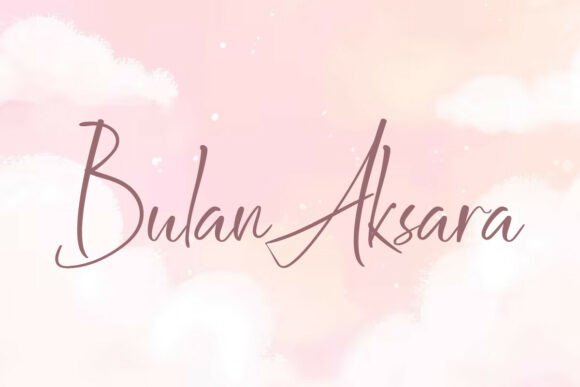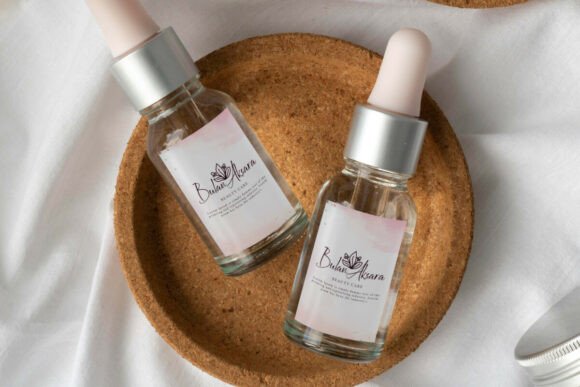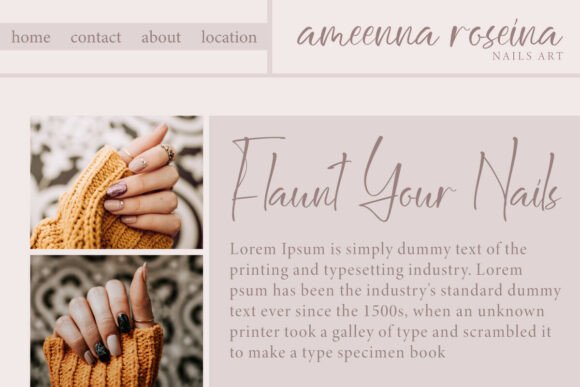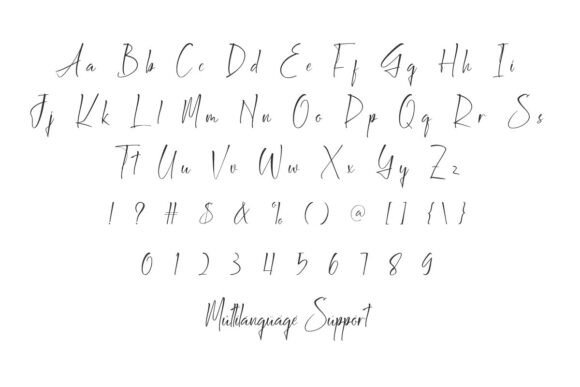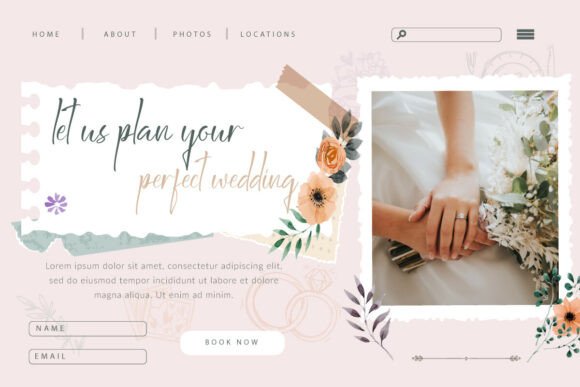
Bulan Aksara Font: Elevate Your Designs with Elegance and Sophistication
In the world of typography, a beautiful font can make all the difference in creating stunning designs that capture the essence of your brand or project. One such font that has gained popularity among designers and crafters is the Bulan Aksara Font. This gorgeous, handcrafted signature script boasts a modern, chic signature font with an elegant style that can instantly elevate your designs.
What is Bulan Aksara Font?
Bulan Aksara Font is a carefully crafted, handwritten script that exudes a natural and personal appeal. Its elegant style and modern charm make it perfect for a wide range of design projects, from business branding to personal use. This versatile font is ideal for creating stunning visual content for various industries, including bridal boutiques, clothing brands, cosmetics, fashion, florists, restaurants, salons, skincare, spas, wedding organizers, and more.
Key Features of Bulan Aksara Font
- Handcrafted with love: Each letter has been carefully crafted to give it a personal touch, making it perfect for designs that require a human touch.
- Modern and chic: The font boasts a modern, sophisticated style that will make your designs stand out from the crowd.
- Elegant style: The elegant style of Bulan Aksara Font makes it perfect for high-end branding, wedding designs, and luxury products.
- Natural and realistic: The handwritten script looks natural and realistic, giving your designs a personal and authentic feel.
- Versatile: Suitable for a wide range of design projects, from business branding to personal use.
Why Choose Bulan Aksara Font?
With Bulan Aksara Font, you can add a touch of elegance and sophistication to your designs. Here are some reasons why you should consider using this beautiful font:
- Enhance your designs: Bulan Aksara Font can instantly elevate your designs and make them more visually appealing.
- Stand out from the crowd: The unique and elegant style of this font will help your designs stand out from the competition.
- Perfect for various industries: The font is suitable for a wide range of industries, from fashion and beauty to food and hospitality.
Tips and Tricks for Using Bulan Aksara Font
Here are some tips and tricks to help you get the most out of Bulan Aksara Font:
- Pair it with other fonts: Experiment with pairing Bulan Aksara Font with other fonts to create stunning font combinations.
- Adjust the font size: Adjust the font size to create visual hierarchy and emphasize important text.
- Use it for headings and titles: Use Bulan Aksara Font for headings and titles to add a touch of elegance and sophistication.